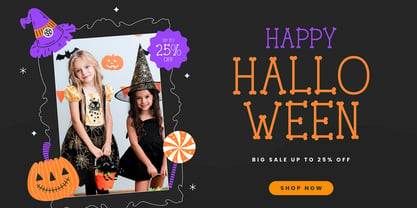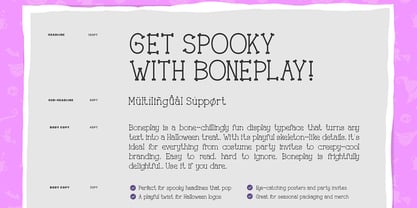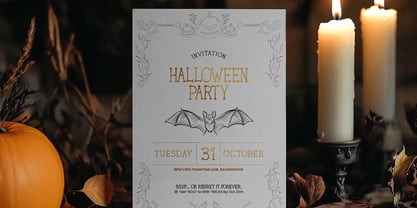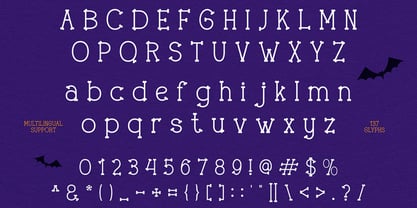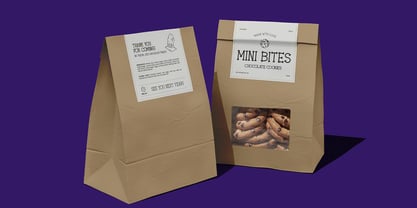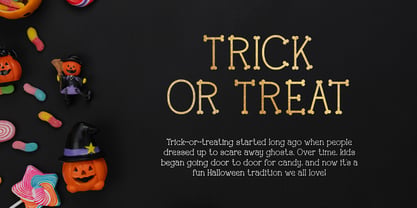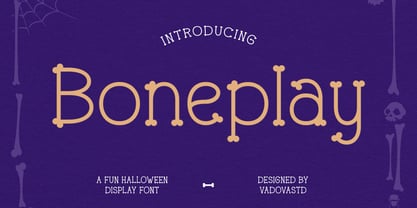
Boneplay
by Vadova Std
Boneplay is a quirky and spirited Halloween-themed display font designed to bring playful eeriness to seasonal designs. With its bone-like letterforms and rounded curves, Boneplay carries a cheerful spookiness that appeals to all ages—especially for Halloween campaigns, event posters, party invitations, and themed social media posts.
The font style is whimsically eerie, walking the line between spooky and fun without becoming overly macabre. It’s especially well-suited for kid-friendly Halloween projects, trick-or-treat printables, haunted house signage, and costume store branding.
Main Features
• Uppercase & Lowercase
• Ligatures & Alternate
• Numeral & Punctuations
• Multilingual Support